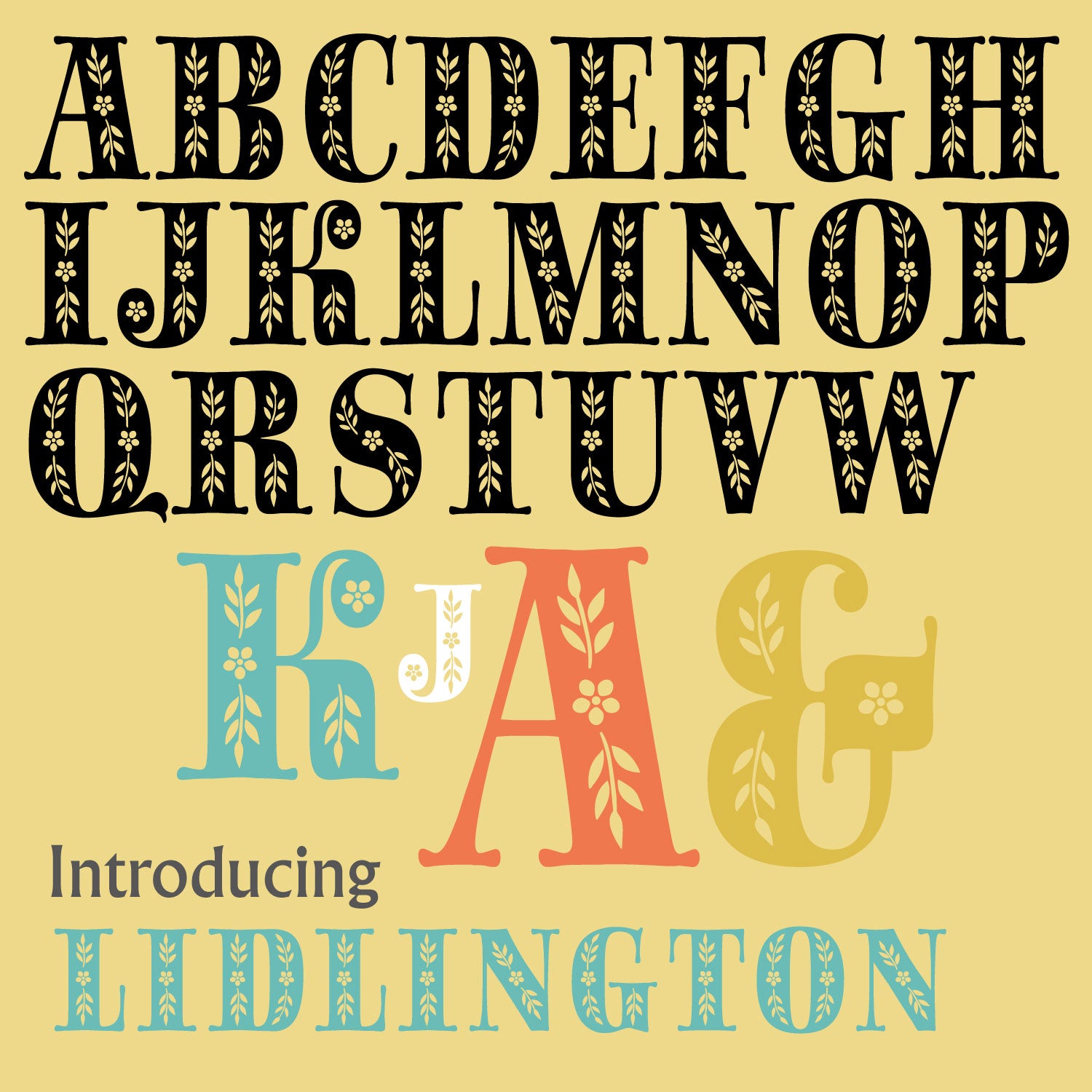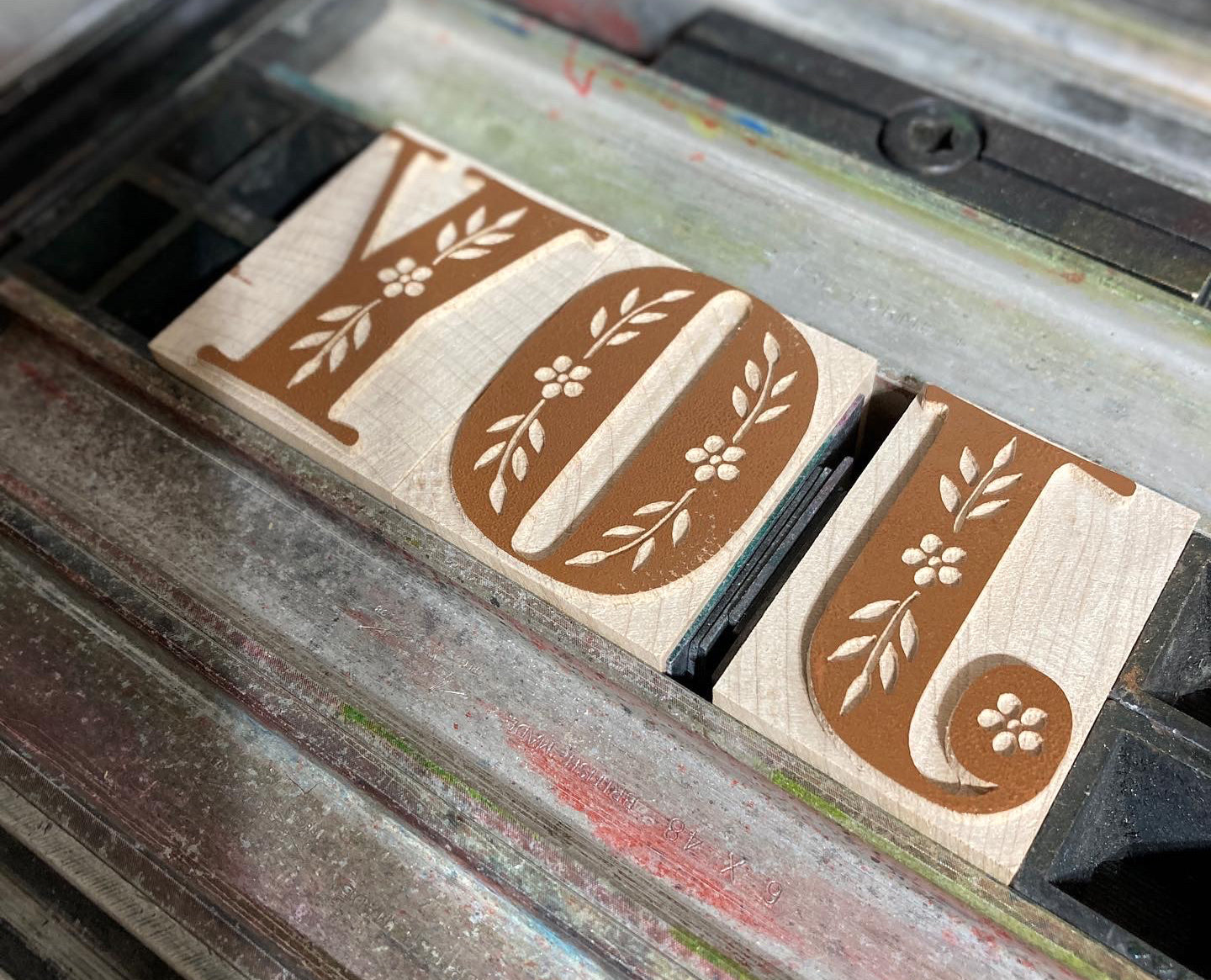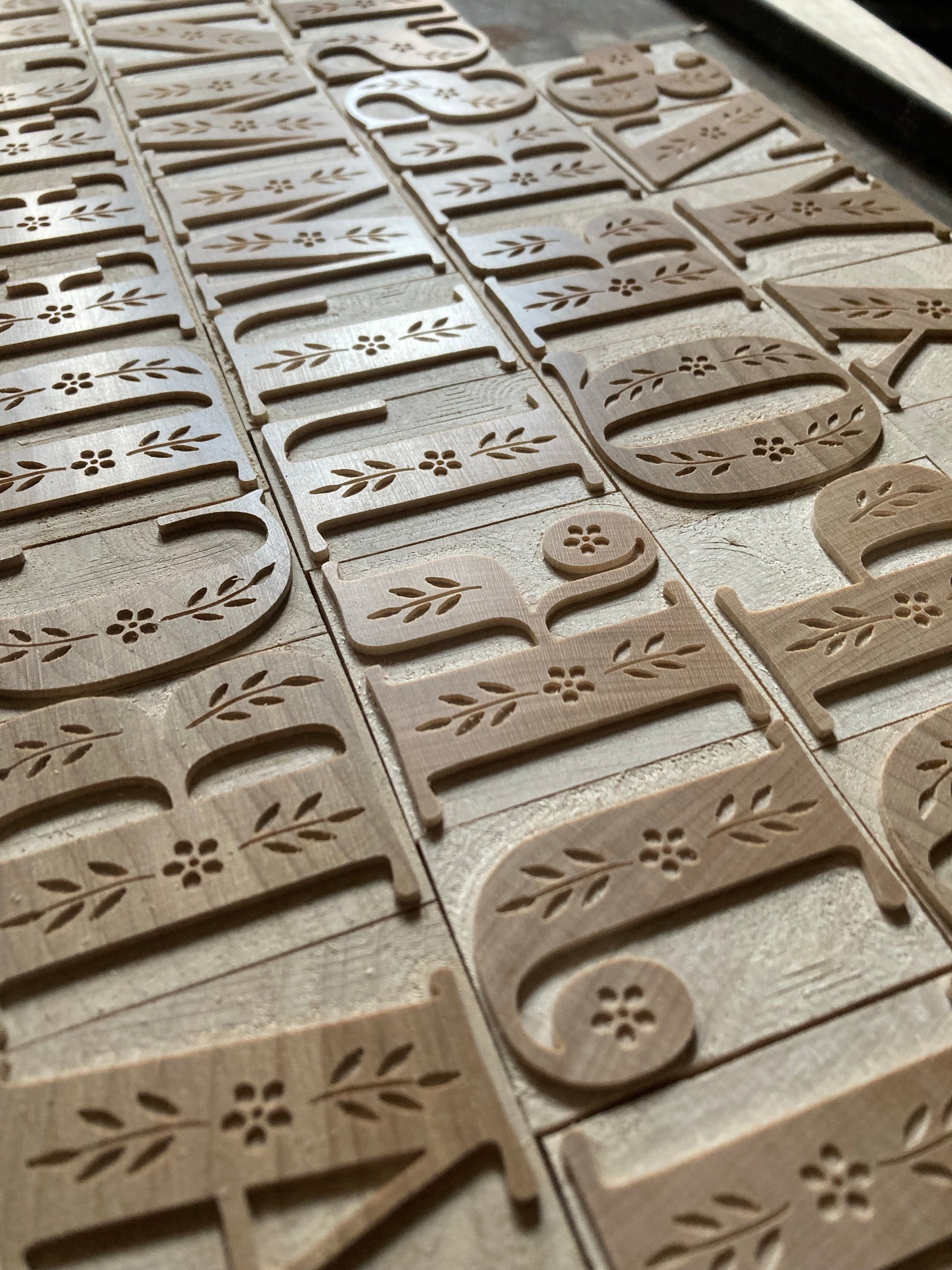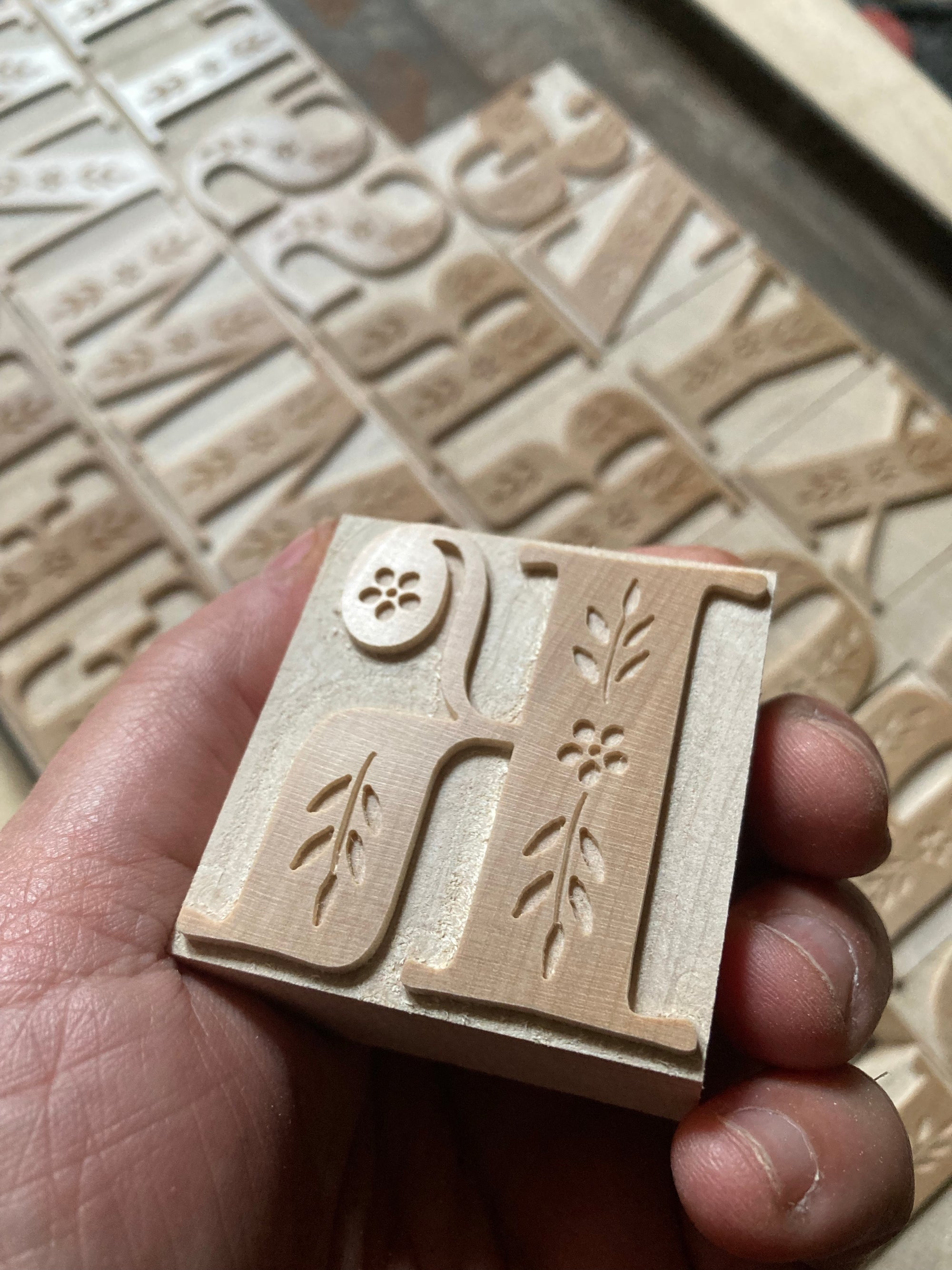
'Lidlington' Ornamented Letterpress Woodtype Typeface
A redrawn version of 'Sapphire' using ornamentation from 'Festive Numerals' (Festliche Ziffern) designed by Hermann Zapf for Stempel Foundry in, Germany in 1951.
12 line (50.8mm) version cut from end grain English hardwood using a combination of modern CNC technology and traditional hand woodworking tools (including an original printers saw), made to English type-high (0.918in or 23.3mm) within plus or minus 0.1mm tolerance, with a traditional polished printing surface.
English end grain hardwood, clear shellac, linseed oil
Each block measures an average of 36mm x 23.3mm x 50.8mm.